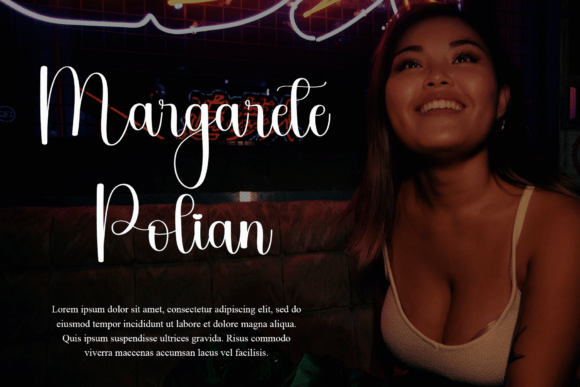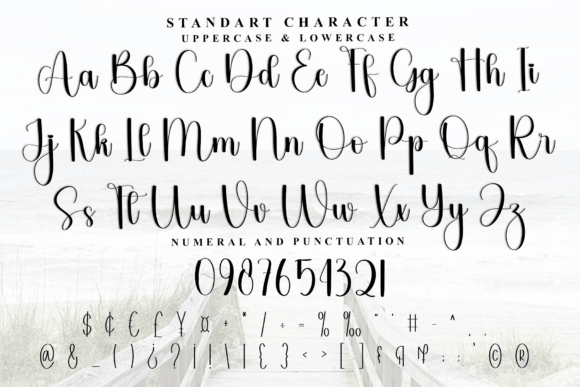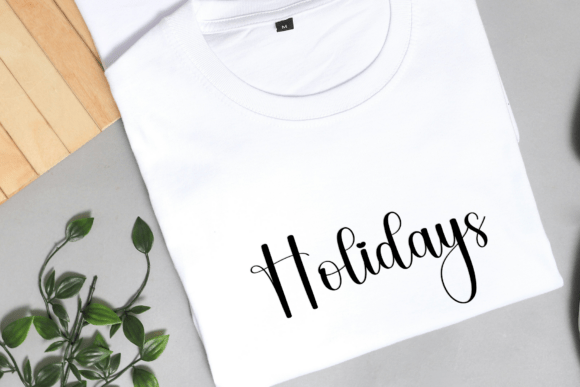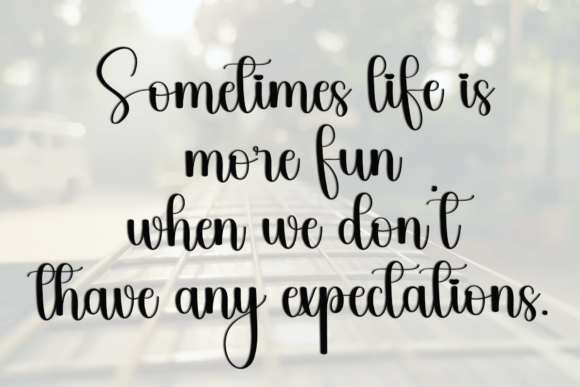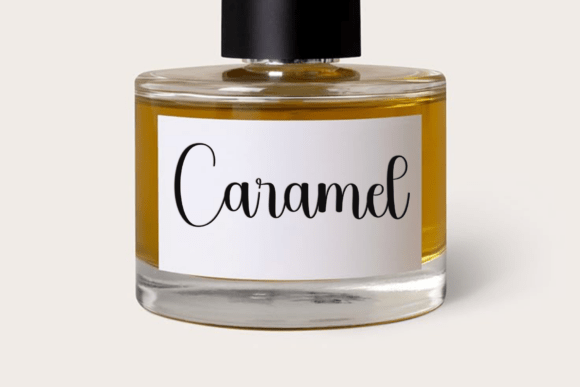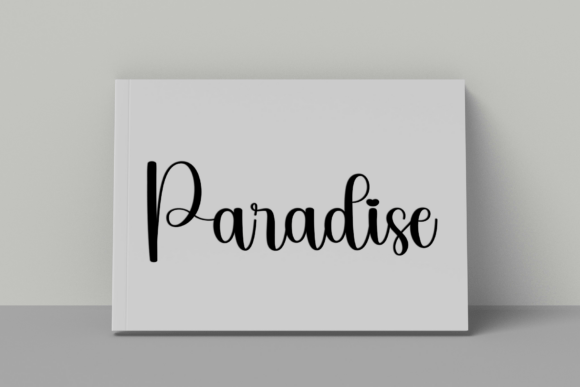
Introducing Delisa Melody Font: The Ultimate Holiday Typographic Delight
As the holiday season approaches, designers and crafters are on the lookout for typography that captures the essence of this festive time of year. Look no further than Delisa Melody Font, a merry and decorative typeface that embodies the spirit of joy and celebration. With its whimsical flair and enchanting elements, Delisa Melody is the perfect addition to your holiday-themed projects.
A Festive Font for the Holiday Season
Delisa Melody Font is specifically designed to bring a touch of magic to your designs. Its decorative elements and curly flourishes evoke a sense of nostalgia and cheer, making it an ideal choice for greeting cards, gift tags, and holiday-themed projects. Whether you’re a designer, crafter, or DIY enthusiast, this font is sure to add a dash of festive fun to your creations.
Key Features of Delisa Melody Font
- Decorative Elements: The font boasts a range of decorative elements, including curly flourishes, swashes, and other whimsical features that add a touch of enchantment to your typography.
- Whimsical Flair: Delisa Melody Font has a playful, whimsical quality that makes it perfect for holiday-themed projects. Its curly, curly lines and shapes evoke a sense of nostalgia and fun.
Delisa Melody Font is designed with the holiday season in mind. Its festive and merry vibe makes it perfect for a range of projects, including:
- Greeting Cards: Add a touch of magic to your holiday greeting cards with Delisa Melody Font.
- Gift Tags: Create personalized and festive gift tags with this delightful font.
- Holiday-Themed Projects: From Christmas decorations to Halloween party invitations, Delisa Melody Font is the perfect choice for any holiday-themed project.
Why Choose Delisa Melody Font?
With so many fonts available, why choose Delisa Melody Font? Here are just a few reasons why this font stands out:
- Unique and Eye-Catching: Delisa Melody Font is a one-of-a-kind typeface that adds a touch of personality to your designs.
- Versatile: This font can be used for a range of projects, from digital designs to print materials.
Tips for Using Delisa Melody Font
To get the most out of Delisa Melody Font, here are a few tips:
- Experiment with Sizes: Play around with different font sizes to create visual interest and hierarchy in your designs.
- Combine with Other Fonts: Pair Delisa Melody Font with other fonts to create a unique and eye-catching typographic combination.
- Use Decorative Elements: Take advantage of the font’s decorative elements, such as swashes and flourishes, to add a touch of whimsy to your designs.
Delisa Melody Font is a festive and merry typeface that captures the spirit of the holiday season. With its decorative elements, whimsical flair, and PUA encoding, this font is perfect for designers and crafters looking to add a touch of magic to their holiday-themed projects. Whether you’re creating greeting cards, gift tags, or other holiday-themed designs, Delisa Melody Font is sure to bring a cheerful and nostalgic ambiance to your words. So why wait? Let your typography shine with the magic of Delisa Melody Font!